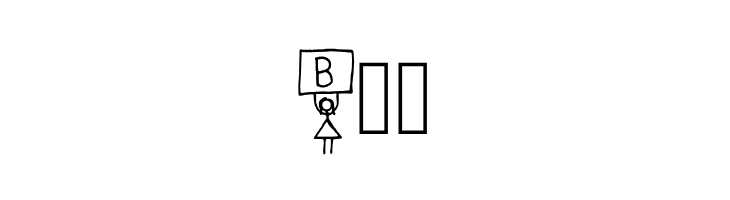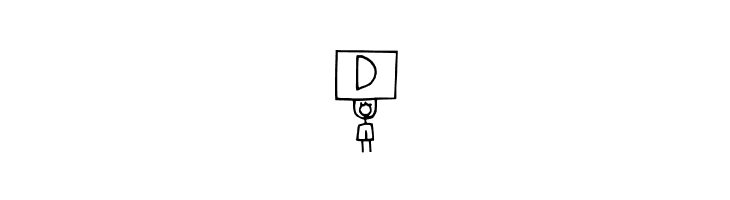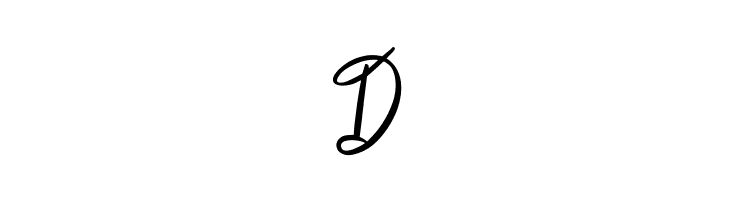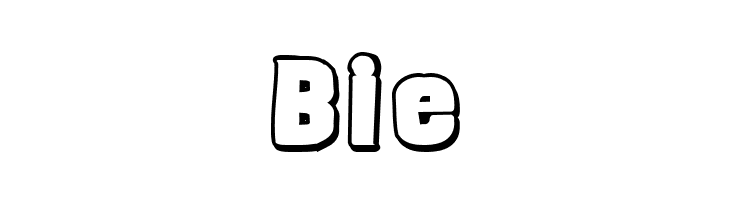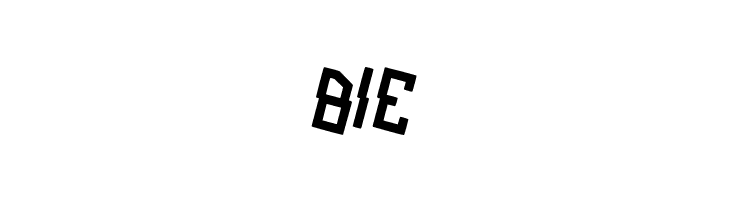
• Almonte Slam
• Alodega FREE
A playful, energetic script font with bold, flowing cursive letters.
• Alona Free
A lively and expressive handwritten font with fluid, dynamic strokes.
• Alonnafeast Free Regular
A modern, elegant handwritten font with fluid, graceful strokes.
• alot of love
A bold, angular, geometric font with a modern edge.
• Alpha Dance
( Fonts by uatype.faithweb.com - UnAuthorized Type )
A bold, angular font with a dynamic and edgy style.
• Alpha Kids Regular
( Fonts by Shelley Evans )
A playful, whimsical font with stick figures holding boxed letters and numbers.
• Alpha Men
A futuristic, geometric font with bold, angular letterforms.
• Alpha Men 3D
A bold, 3D geometric font with a futuristic style.
• Alpha Men 3D Italic
A bold, 3D italic font with a futuristic and dynamic style.